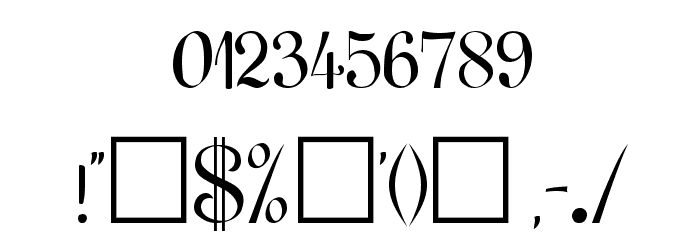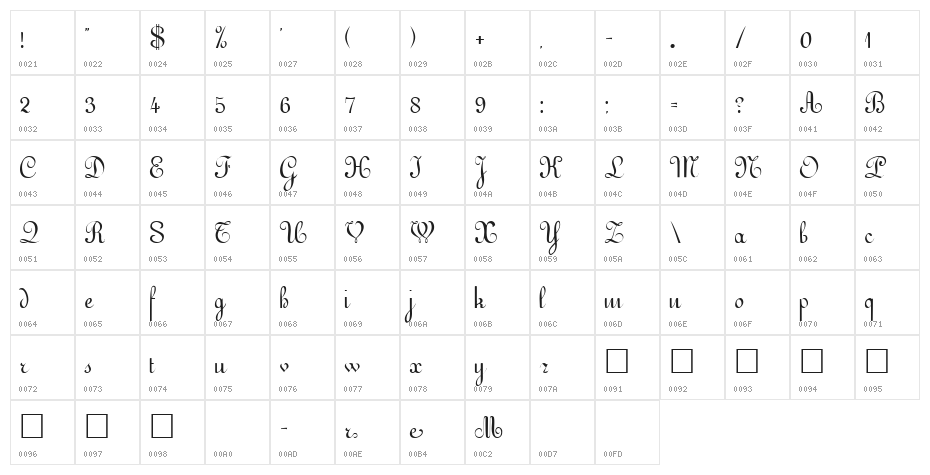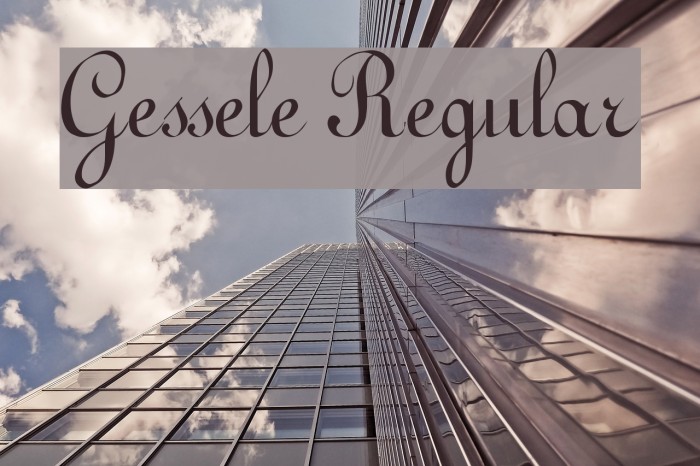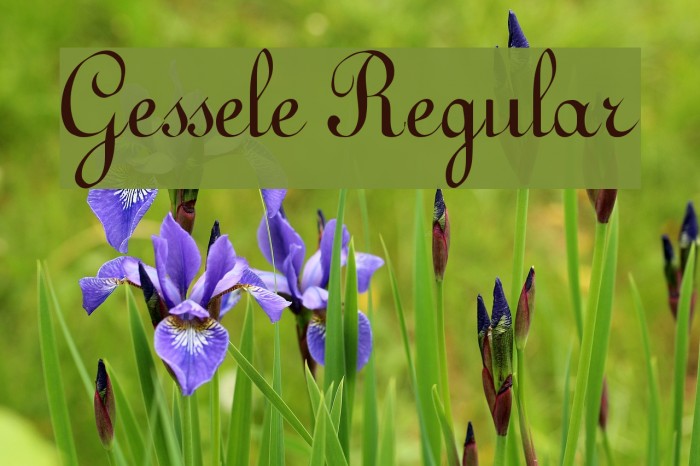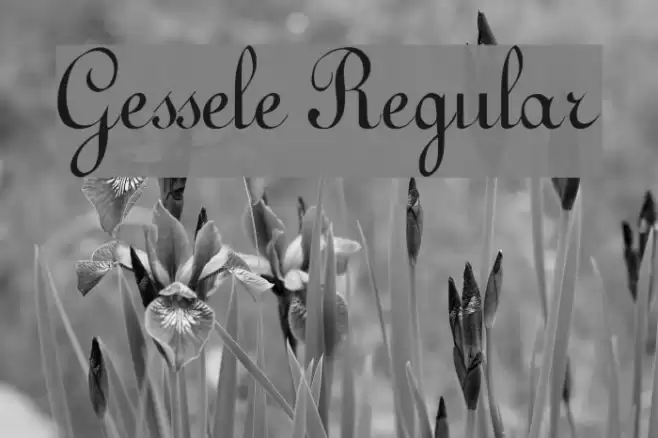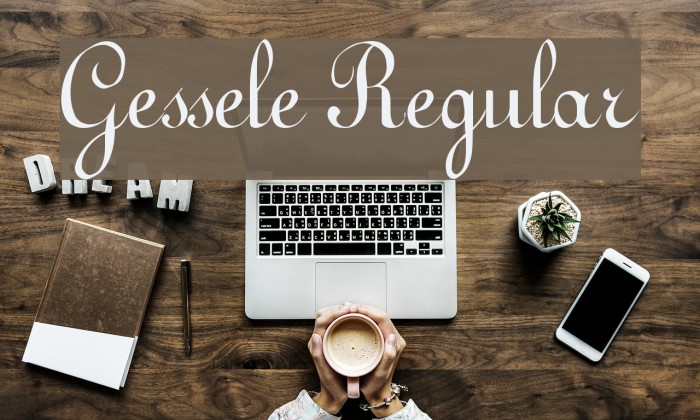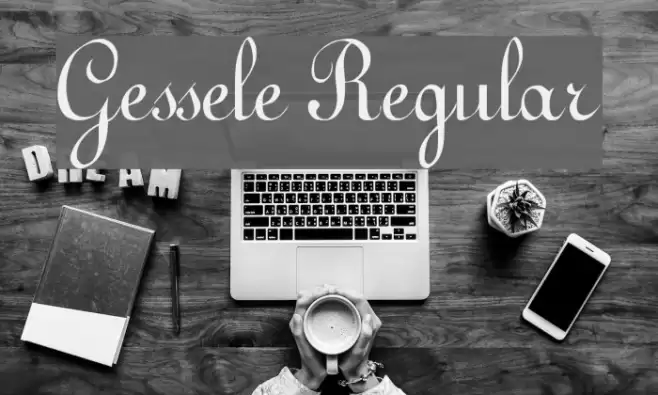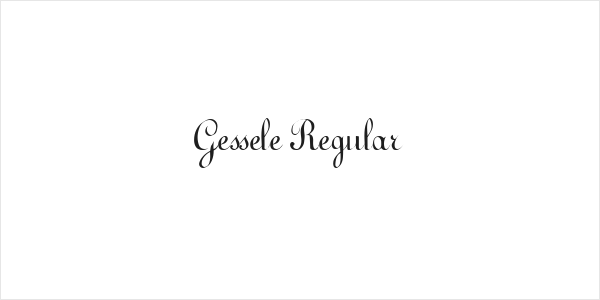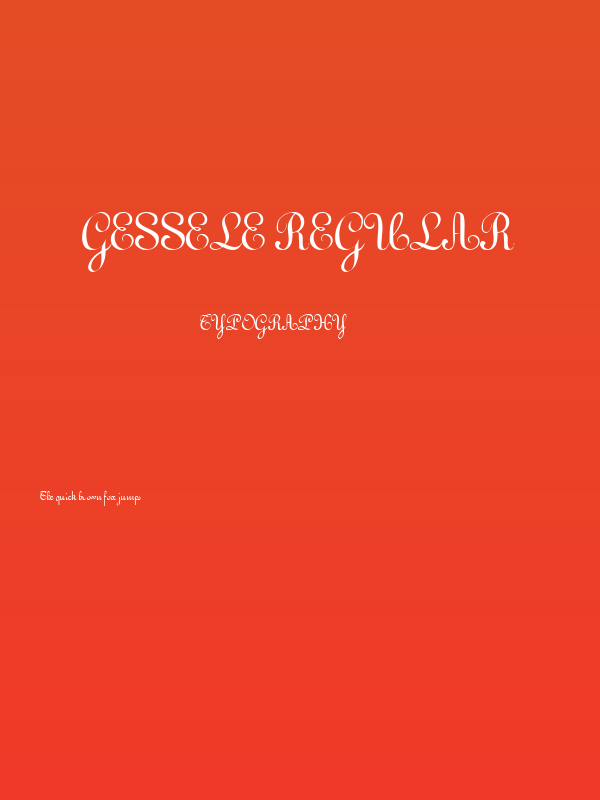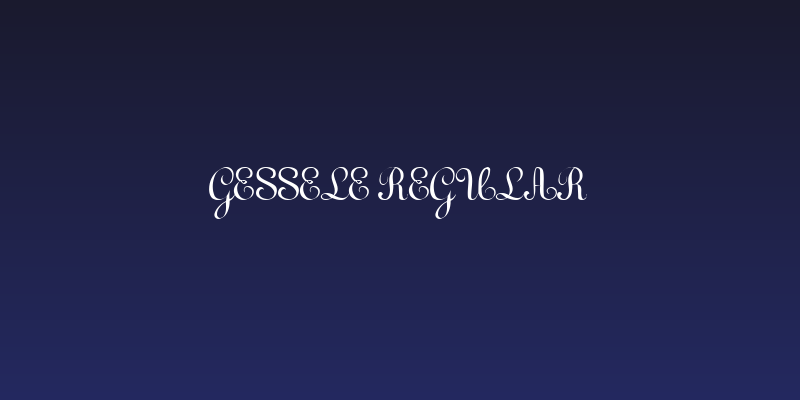
Gessele Regular Font
Gessele Regular Description
This font exhibits a decorative and elegant style, characterized by its flowing, cursive-like uppercase letters and more restrained lowercase forms. The uppercase letters feature intricate loops and swirls, adding a sense of sophistication and flair. The lowercase letters maintain a more straightforward, yet still stylish appearance, with some characters incorporating subtle flourishes. The numerals are consistent with the overall aesthetic, offering a blend of readability and decorative appeal. Special characters are designed to complement the font's ornate style, making it suitable for creative and artistic applications.
| Proposed Projects | Ideal for wedding invitations, luxury branding, high-end product packaging, and artistic posters. |